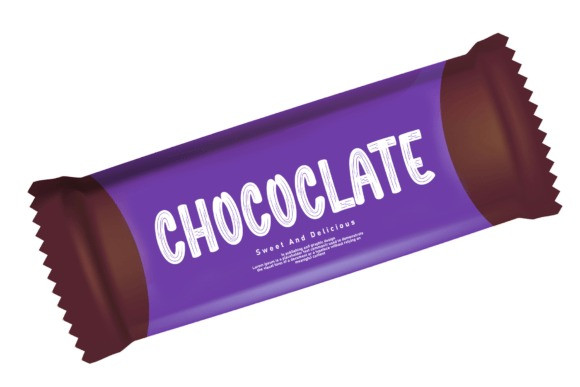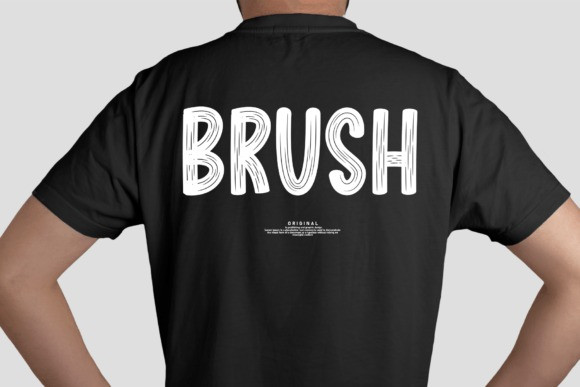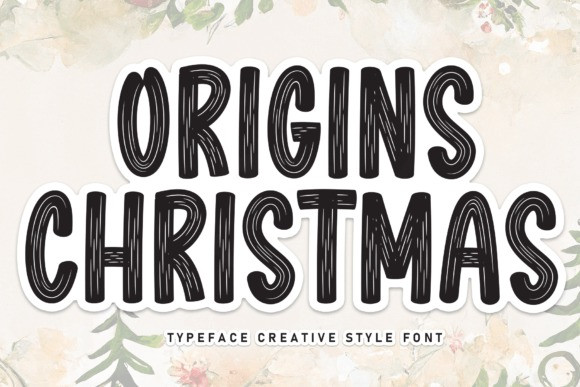
Origins Christmas Font
Origins Christmas Font is a sweet and friendly handwritten font. Its natural and unique style makes it incredibly fitting to a large pool of designs. The only limit is your imagination!